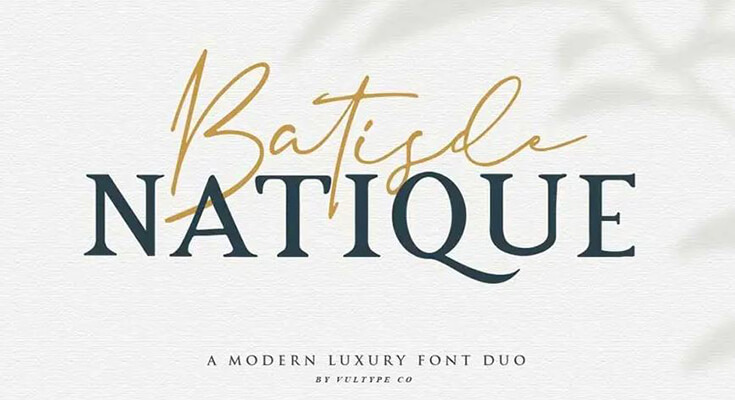
Batisde Font is a script and modern serif with a bunch of alternates for each character and ligatures that will make your presentation or logo even more stunning and stand out!
It was created by Vultype Design Company which provides high-quality retail fonts & special licenses for improving your creativity and productivity.
Because of its handwritten script and serif style, created to give your next project a natural yet stylistic look. It easily collaborates for magazine, movie, or book titles.
It comes in only a single style that possesses both Open and True Type features. And also consists of uppercase, lowercase, Numeric, and some Special character. And this font contains 197 glyphs and 469 binary stored kerning pairs.
Style:Script, Serif, Display
This typeface is perfect for creating high-end designs for luxury brands, fashion, and lifestyle products. Its delicate and sophisticated strokes create a unique balance between tradition and innovation.
We recommend for use in the following types of tasks: Magazine (title and layout), logos and branding, invitations, quotes, youtube thumbnails, signature, birthday cards, blog headers, posters, advertisements, social media banners, headers, titles, flyers, titles, and body copy.
This typeface includes a full set of uppercase and lowercase letters, numbers, and symbols, making it suitable for use in various projects such as logos, branding, editorial design, and more.
All the classy and feminine typefaces can be used for both headers and body copy.